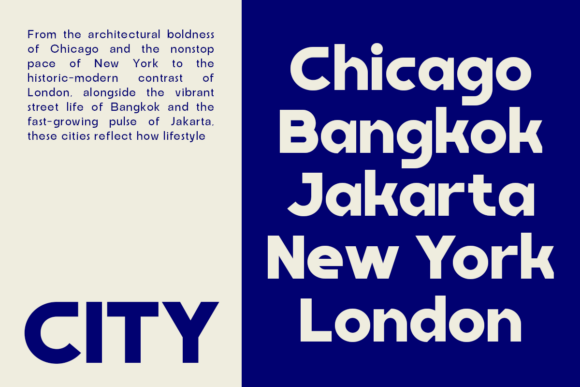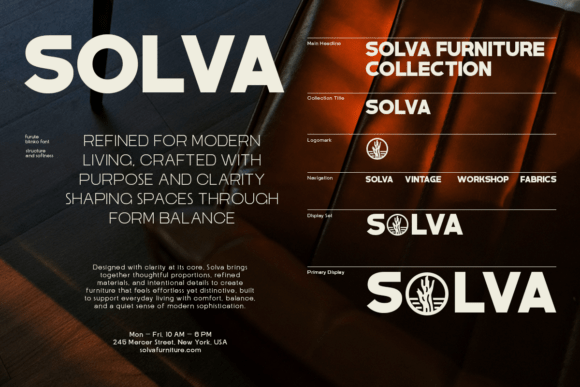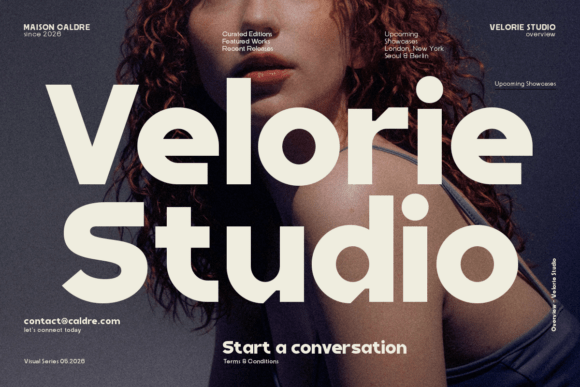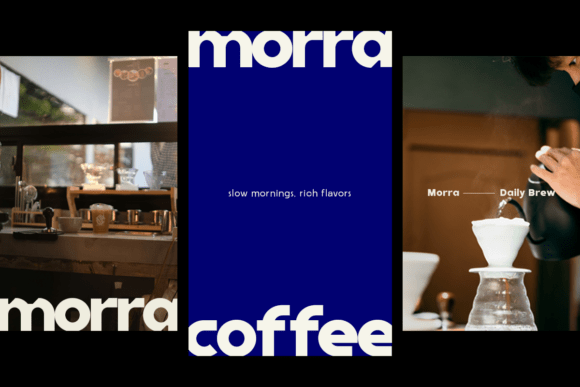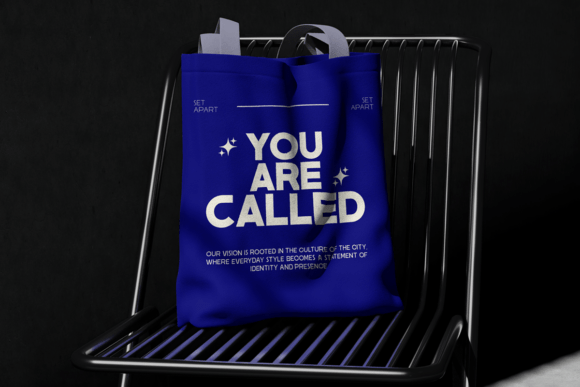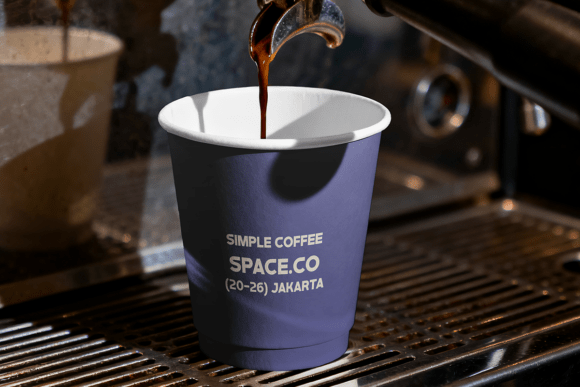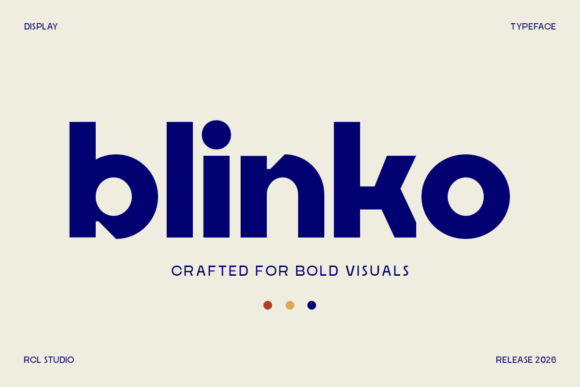
The Blinko Font: A Bold and Friendly Display Sans-Serif for Modern Design
I’ll never forget the time I was working on a branding project for a new coffee shop. I had spent hours scouring the internet for the perfect font, but nothing seemed quite right. That was until I stumbled upon Blinko Font. Its bold, rounded curves and chunky proportions instantly caught my eye, and I knew I had found the one. In this article, I’ll share my experience with Blinko Font, its features, and how to make the most of it in your designs.
An Honest Review of Blinko Font
So, what makes Blinko Font so special? Here are a few things I love:
- ✨ Energy and personality: Blinko Font is designed to bring a strong yet friendly presence to your designs. Its soft curves and bold weight make it perfect for eye-catching compositions and expressive typography.
- ✅ Readability: Despite its bold and playful character, Blinko Font is carefully crafted with smooth shapes and balanced spacing to ensure readability.
- 💡 Versatility: Blinko Font is perfect for a wide range of design projects, including branding, logos, packaging, posters, social media, and editorial headlines.
Of course, no font is perfect, and Blinko Font has a few small quirks:
- 🤔 Limited use in body text: Due to its bold weight and rounded terminals, Blinko Font may not be the best choice for body text. It’s best used for headlines and titles.
- ⚠️ Overuse can be overwhelming: While Blinko Font is perfect for making a statement, overusing it can be overwhelming. Use it sparingly to maximize its impact.
The Story Behind Blinko Font
Blinko Font was designed with the goal of creating a bold and friendly display sans-serif that would bring energy and personality to modern design. The designer, inspired by the playful curves and chunky proportions of classic sans-serif fonts, carefully crafted Blinko Font to be both highly readable and visually striking.
Q: What is Blinko Font best used for?
A: Blinko Font is best used for headlines, titles, and eye-catching compositions where a bold and friendly presence is desired.
Q: Is Blinko Font suitable for body text?
A: No, Blinko Font is not suitable for body text due to its bold weight and rounded terminals. It’s best used for headlines and titles.
Q: Does Blinko Font come with OpenType features?
A: Yes, Blinko Font comes with OpenType features, including Stylistic Alternates and Glyphs, which can be used to add more personality to your text.